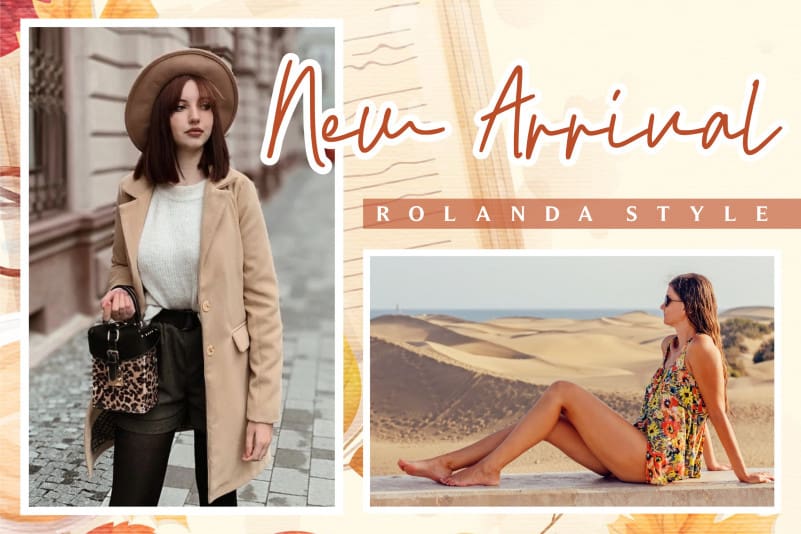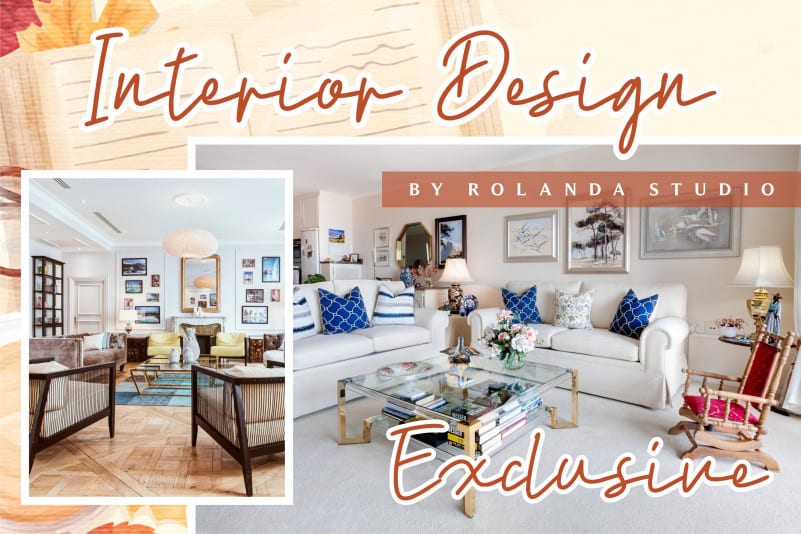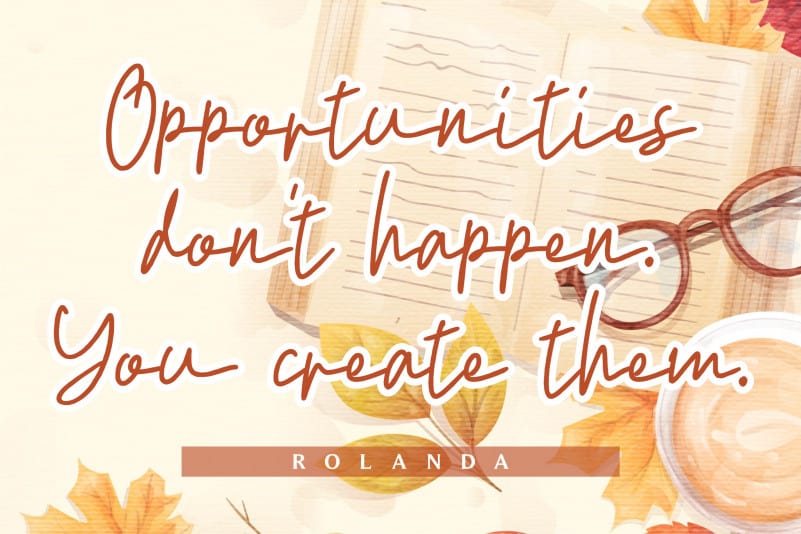
Rolanda Story Handwritten Font is a casual, simple and relaxed handwritten font. It is suitable for any branding, product packaging, invitation, quote, t-shirt, label, poster, logo that you wish to develop.